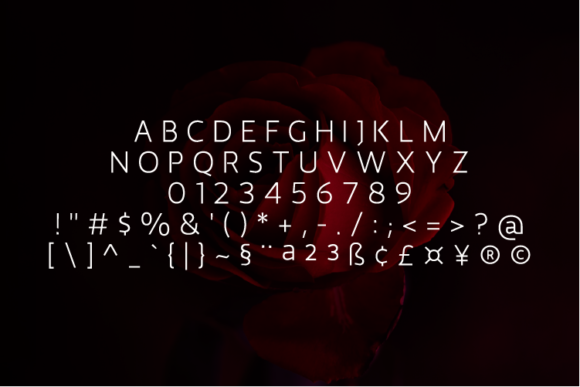
Introduction to Malibo Extra Light Font
As a designer, there’s nothing quite like the thrill of staring at a blank canvas, waiting for inspiration to strike. For me, it often starts with a font – a single, elegant line that sets the tone for the entire project. And when I discovered the Malibo Extra Light Font, I knew I had found something special.
With its refined, sans serif design, Malibo Extra Light Font is the perfect choice for any creative project that demands a touch of sophistication. Its high-quality details and transparent background make it a valuable design resource for designers who crave maximum versatility and control.
Key Features of Malibo Extra Light Font
- High-quality font design ideal for creative projects and design resources, featuring a transparent background for seamless integration.
- Supports a range of languages, including Latin, Greek, and Cyrillic scripts, making it a versatile font for various creative projects.
- Font size: 1,024 units per em (uEm), with a resolution of 1,000 dots per inch (DPI) for crisp and clear typography.
- Unique characteristic: The Malibo Extra Light Font features a delicate and elegant design, making it perfect for use in branding, packaging, and editorial design.
Honest Review: Malibo Extra Light Font
I recently had the chance to work with the Malibo Extra Light Font, and I must say it’s been a game-changer for my design projects. The high quality of the font is immediately noticeable, making it a fantastic addition to any creative project.
Here are some things that work well: ✨
- Legibility: The font is incredibly easy to read, even at smaller font sizes.
- Transparent background: This feature has been a lifesaver for me, as it allows me to easily place the font over any background image.
While the Malibo Extra Light Font is an excellent resource, I do have a few minor complaints: ⚠️
- Limited font sizes: The font only comes in a few different sizes, which can make it a bit restrictive for more complex designs.
- No bold or italic variations: While the font is beautiful in its light form, it would be nice to have some heavier or italic options to add some visual interest.
Overall, I’m thoroughly impressed with the Malibo Extra Light Font. Its high quality and versatility make it a valuable addition to any design library. If you’re looking for a reliable font for your next creative project, I highly recommend giving it a try.
For the best results, use Malibo Extra Light Font in conjunction with other high quality design resources. Experiment with different font sizes, colors, and styles to create a visually appealing design. This font is also perfect for creating headings and titles that stand out from the rest of the text.
Malibo Extra Light Font is commonly used in creative projects such as logos, brochures, business cards, and websites. It’s also perfect for creating invitations, menus, and other print materials that require a touch of elegance and sophistication.
Yes, the Malibo Extra Light Font is designed to be used with a transparent background, making it perfect for designers who want to create visually appealing and creative projects. The transparent background allows the font to blend seamlessly with any background image or color.